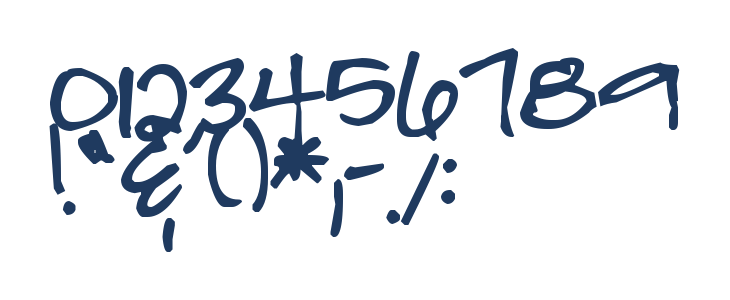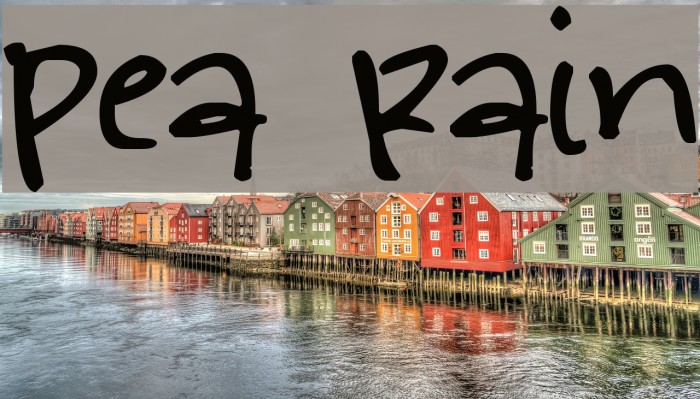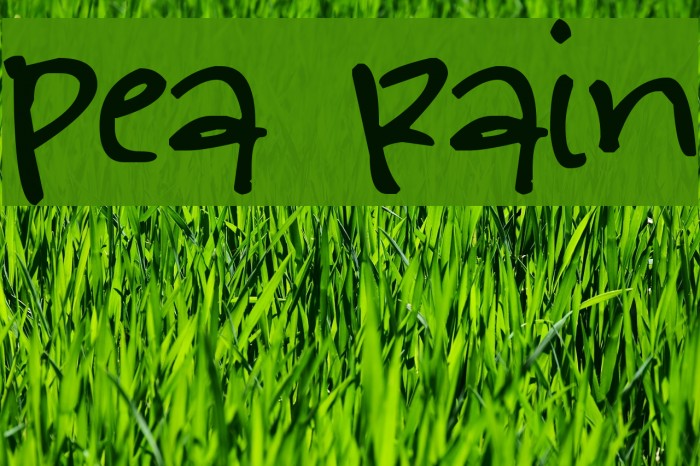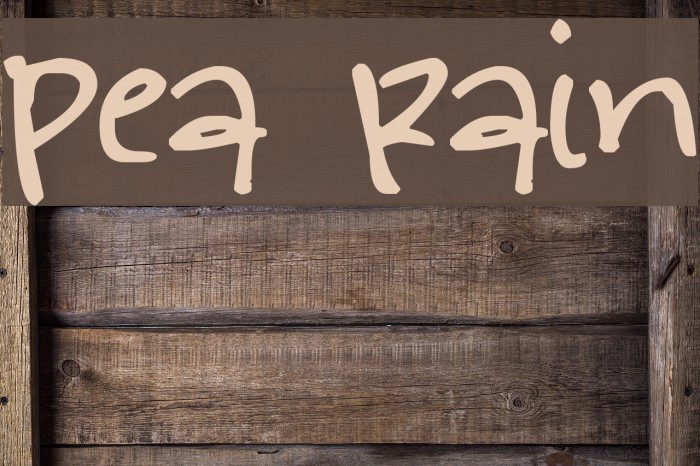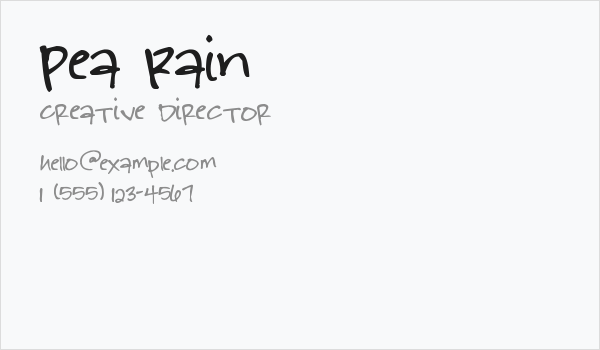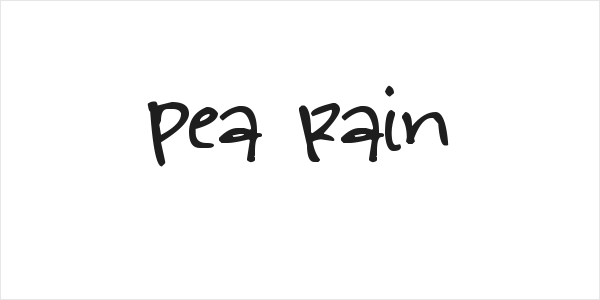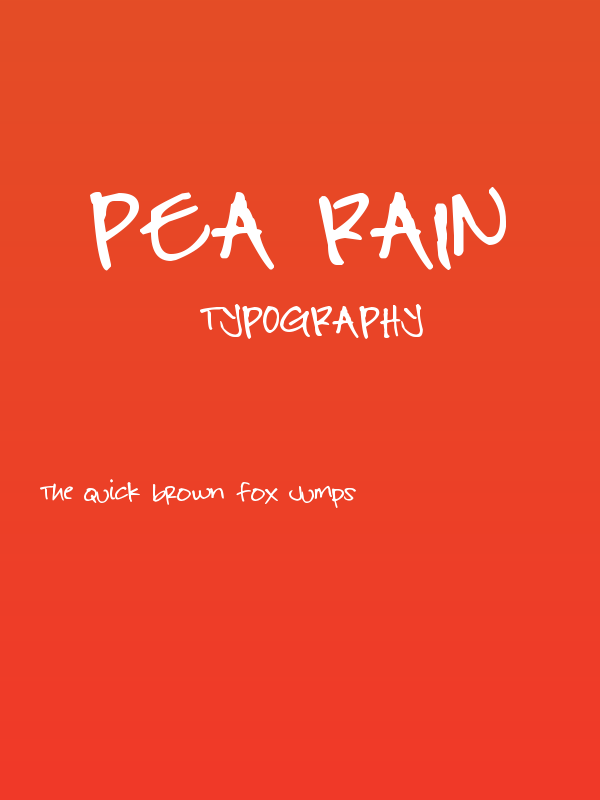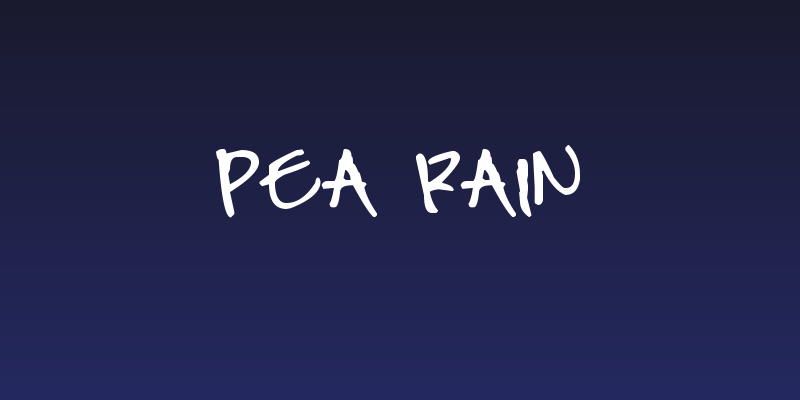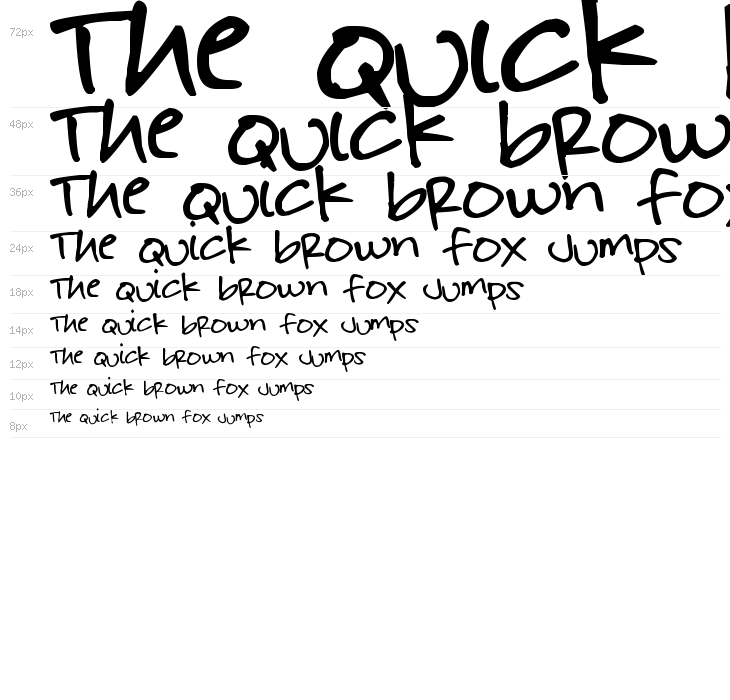
Pea Rain Font
Pea Rain Description
This font exudes a playful and casual handwritten style, characterized by its uneven strokes and organic flow. The letters have a lively and informal appearance, with each character slightly varying in size and angle, adding to its charm. The uppercase and lowercase letters maintain a consistent style, with rounded edges and a slight slant, giving it a personal touch. The numerals and special characters follow the same whimsical design, making the font suitable for creative and informal projects. Its overall appearance is friendly and approachable, perfect for adding a personal touch to any design.
| Proposed Projects | Ideal for greeting cards, personal blogs, children's books, and casual branding. |